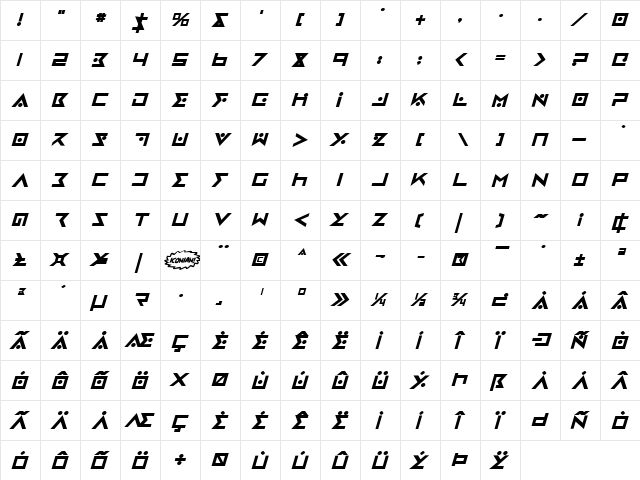
Iron Cobra Bold Italic Bold
Design Context for Iron Cobra Bold Italic Typeface
Iron Cobra Bold Italic is a composed and adaptable typeface that performs quietly and consistently across a wide range of design contexts. The slanted form adds forward momentum and visual energy. Its bold stroke weight gives it real presence on the page.